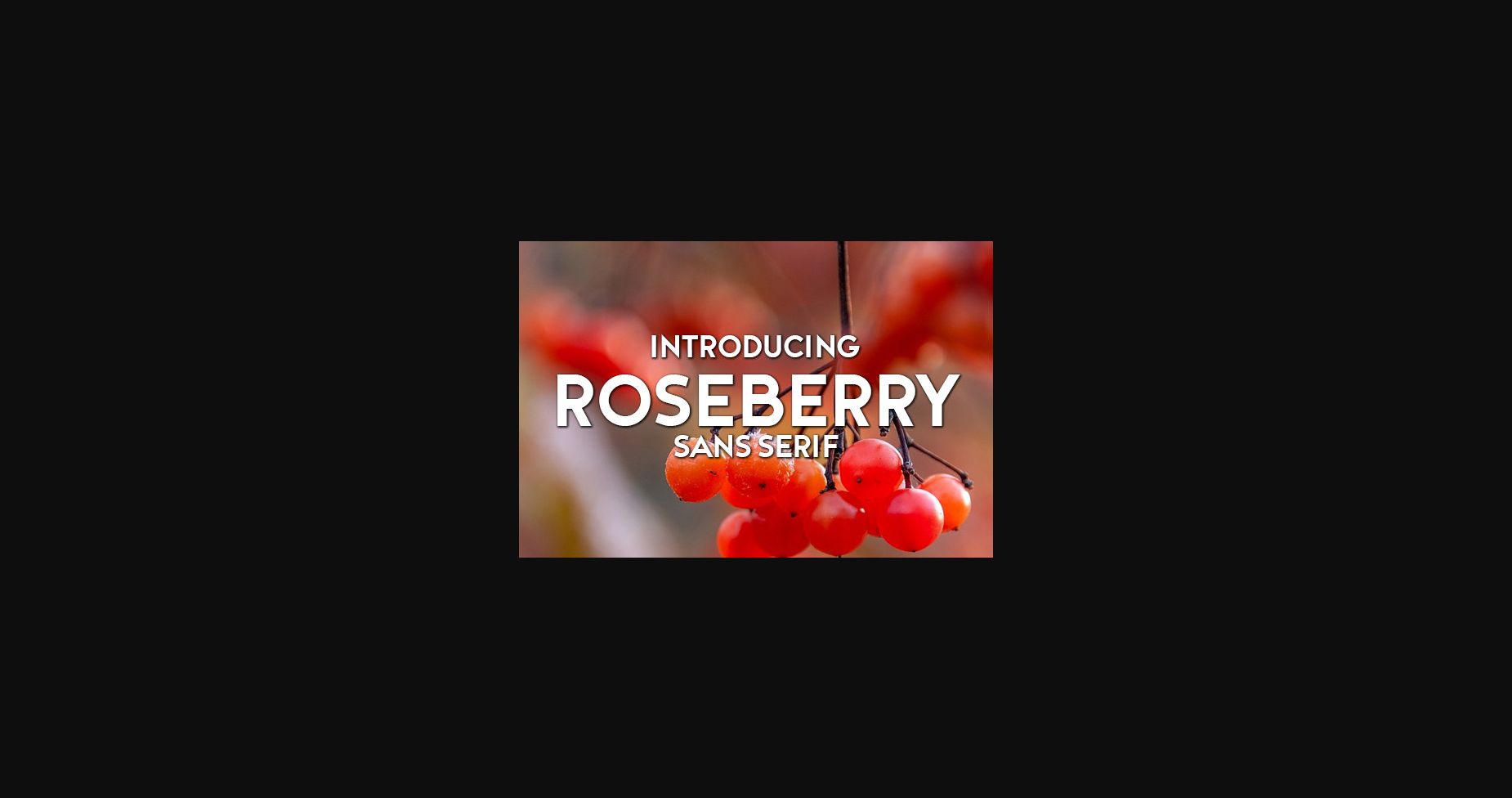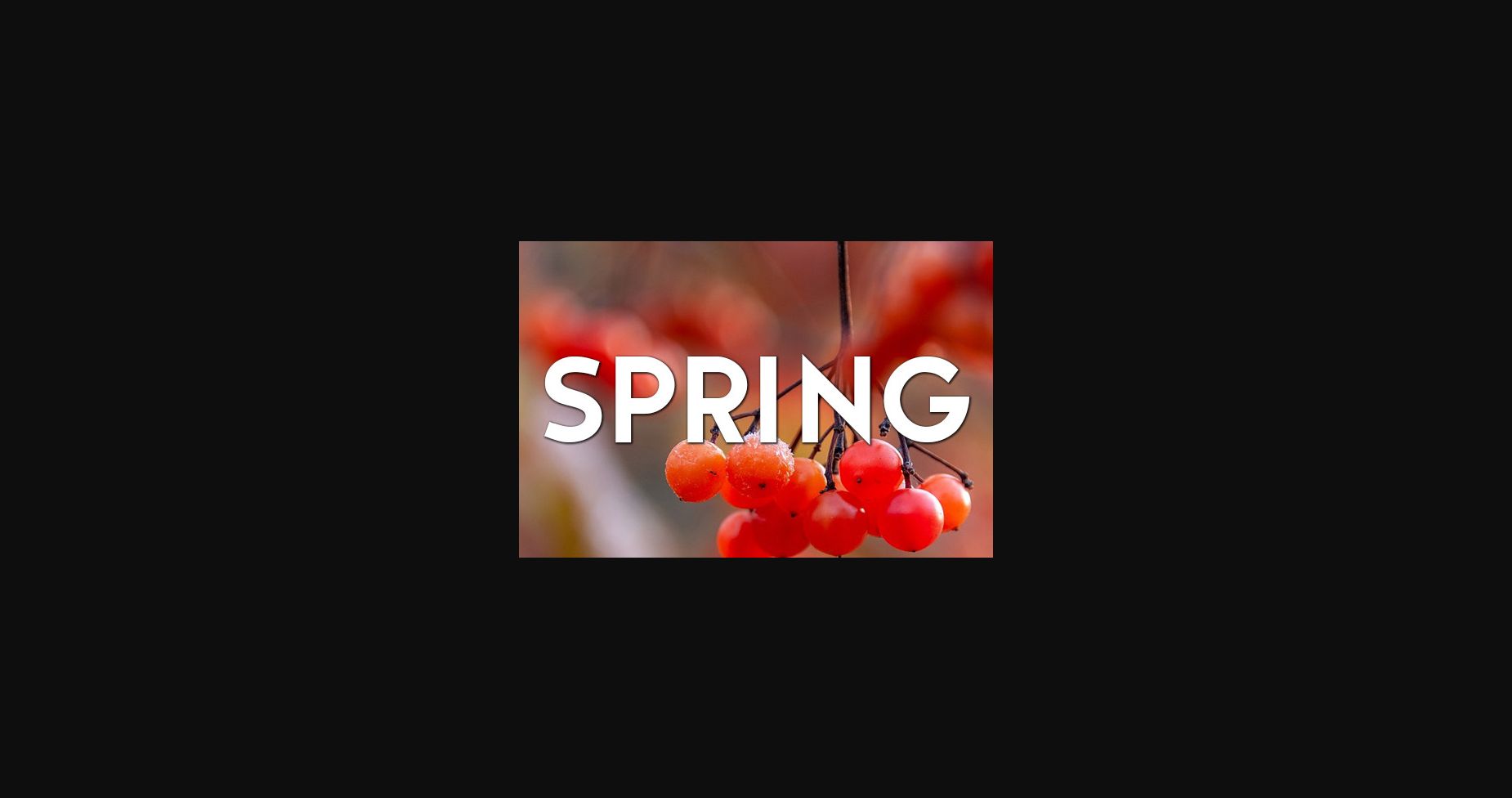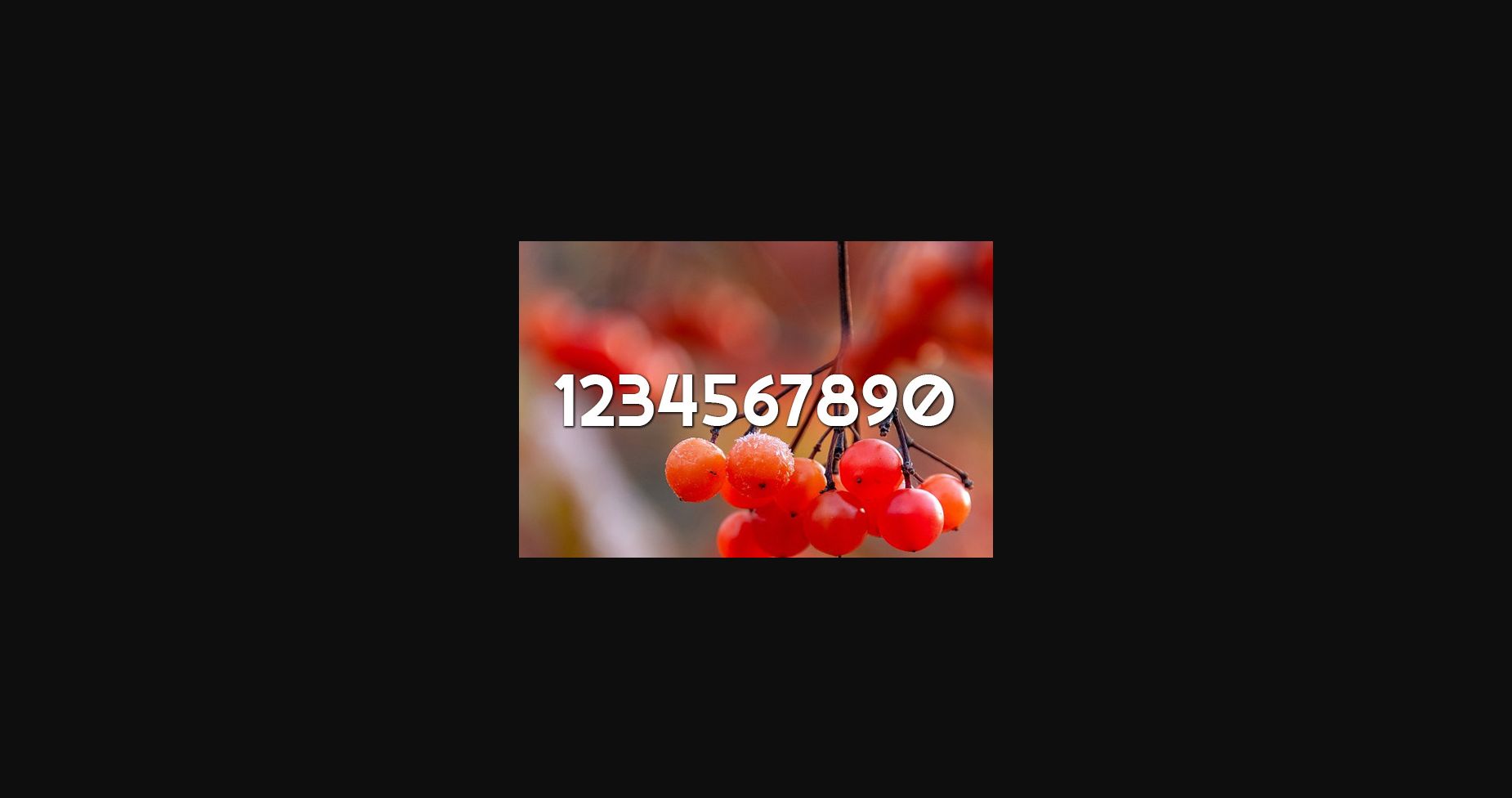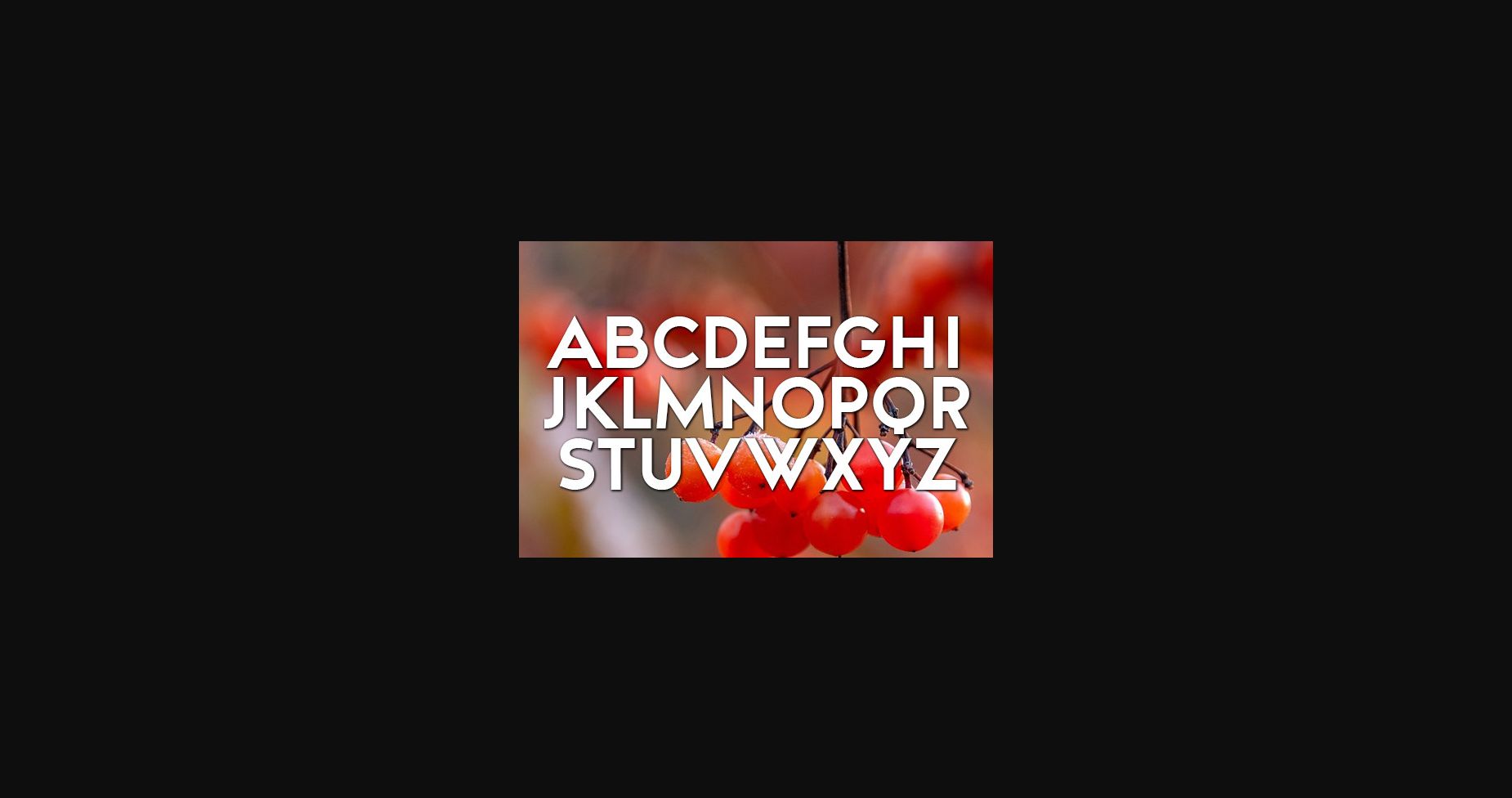
Roseberry Font
About Roseberry Font
Roseberry is a cool and unique sans serif font that will fit great on any of your designs.
Use this font on posters, flyers, and prints.